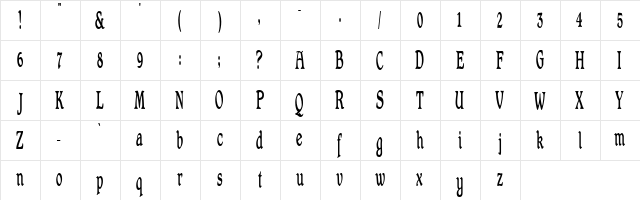
ShrewsburyCondensed Regular
Design Context for ShrewsburyCondensed Typeface
ShrewsburyCondensed offers clean, dependable letterforms without strong stylistic allegiance, making it a practical choice for designers who need flexibility. The condensed width makes it efficient for tight spaces without sacrificing legibility.